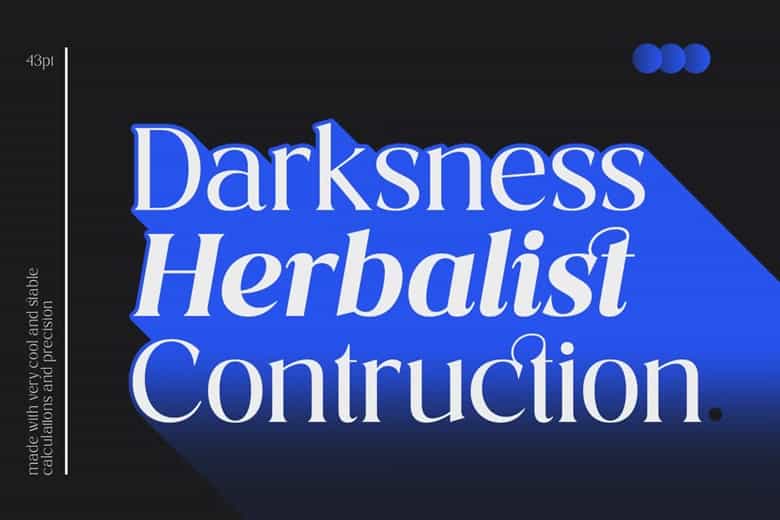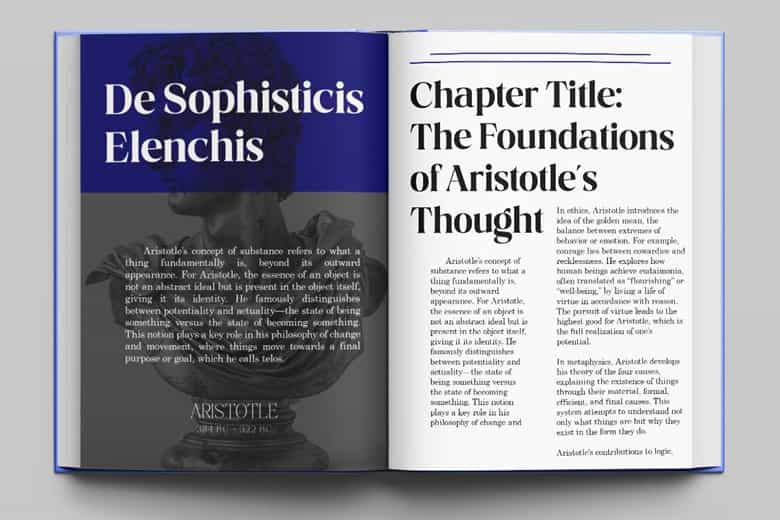
Costaline is a sleek and well balanced modern serif font family with good old vintage touch. It comprises 18 Fonts; Upright and Italic, from Thin to Black weight. Roundness, stiffness and the angle approximately correlate with personality as the thickness of the letters rises. Thinner weights have reduced contrast and optical correction to come up with what photographers consider the warm and soft appearance. Nice looking italic fonts with the perfect match of their corresponding bold forms.